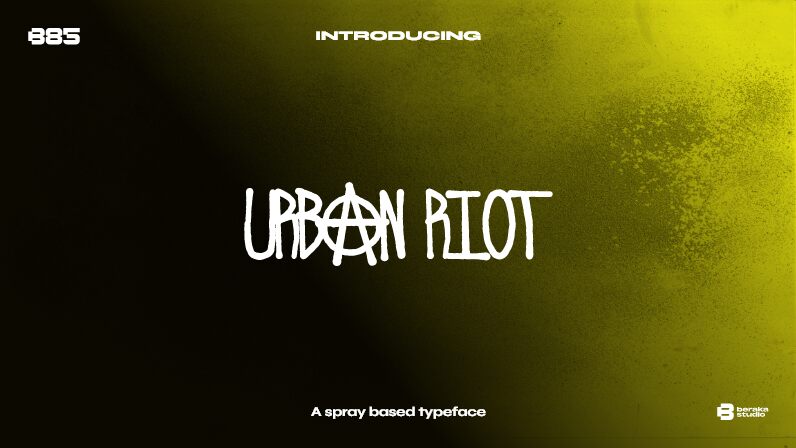
Urban Riot font by B85 is an engaging graffiti typeface that brilliantly executes the typical urban aesthetic of street art. Its condensed style is bold and direct but still allows for some eye-catching detailing. The rough texture, distressed appearance, grunge style, and edgy vibe are elements that combine to ensure authenticity and genuine reader engagement.
Use this free graffiti font across posters, logos, social media visuals, advertisements, brochures, banners or websites. Urban Riot pairs well with book covers/titles especially of featured in those targeted toward a young adult audience. It will also fit magazine covers or even product labels on certain types of beverages or apparel brands.